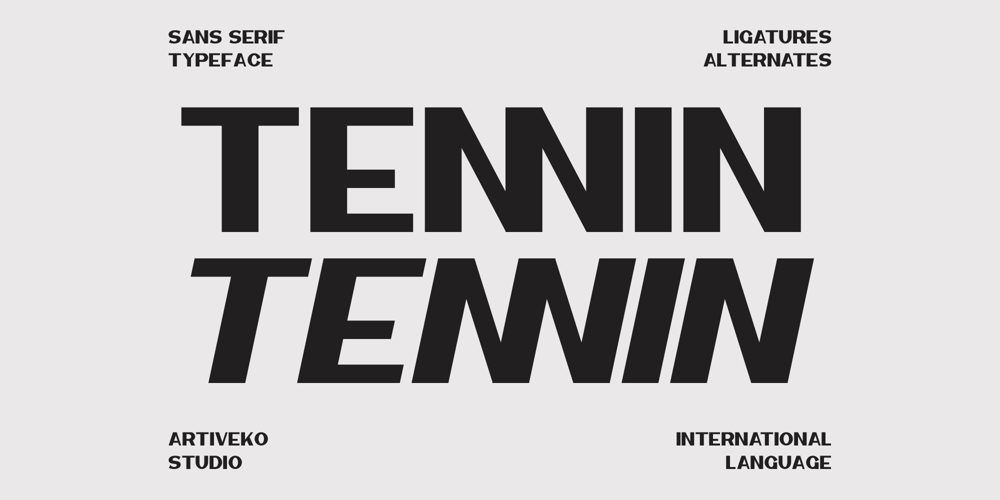
Tennin Font Family was designed by Iwan Alwan and published by Artiveko. Tennin contains 2 styles and family package options. Tennin is a distinctive display logo font designed by Iwan Alwan. It features a unique style with variations in uppercase and lowercase letters, providing multilingual support, alternates, and ligatures. Tennin’s elegant design makes it perfect for creating eye-catching logos and striking headlines.